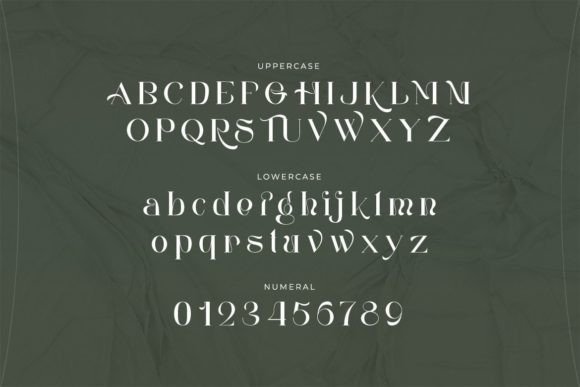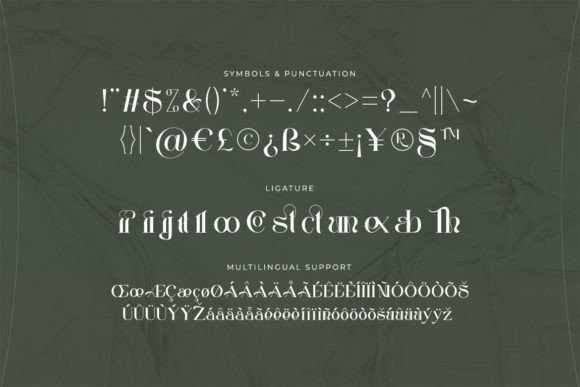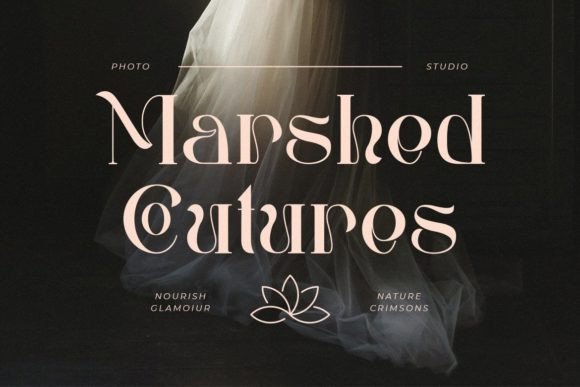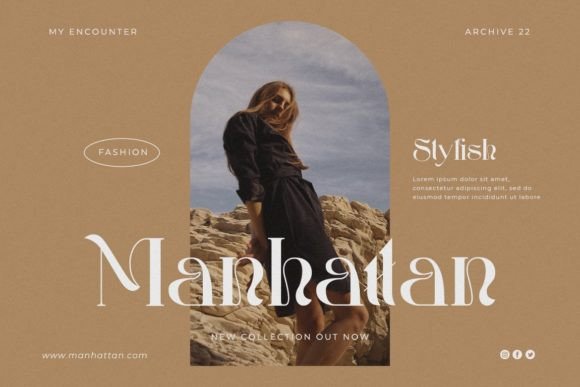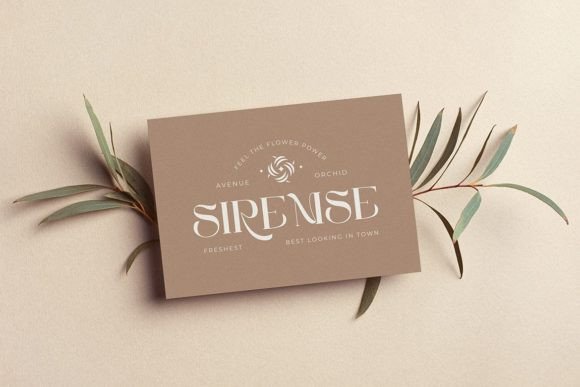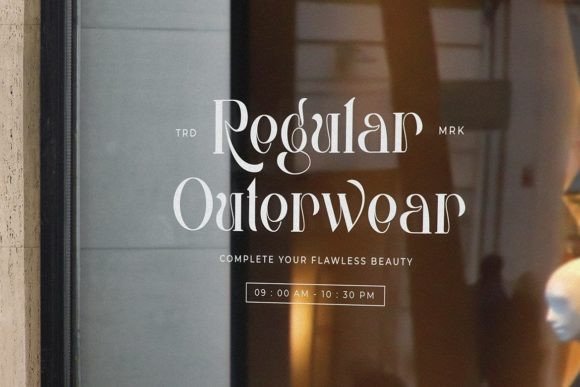
Introduction to My Encounter Font
Have you ever been working on a creative project, pouring your heart and soul into it, and then suddenly, the perfect font comes along and elevates your design to the next level? That’s exactly what happened to me when I stumbled upon the My Encounter Font. Its unique blend of elegance and sophistication instantly caught my eye, and I knew I had to learn more about this incredible design resource.
As a designer, I know how crucial it is to have access to high-quality fonts that can help bring our vision to life. The My Encounter Font, with its PUA encoding, offers a level of flexibility and creativity that’s hard to find in other fonts. With its wide range of glyphs and ligatures, I can confidently say that this font is a game-changer for any design project, whether it’s a logo, a brochure, or even a presentation with a transparent background.
Key Features of My Encounter Font
- High-quality, professional design perfect for creative projects and presentations.
- Includes a range of styles and weights, allowing for maximum flexibility in your design.
- Perfect design resource for graphic designers, artists, and anyone looking for a unique font for their creative project.
Honest Review: My Encounter Font
As a designer, I’m always on the lookout for unique and high-quality design resources to enhance my creative projects. Recently, I stumbled upon the My Encounter Font, and I’m excited to share my honest review with you.
What works well about this font is its versatility and readability. ✨ The font comes in a variety of weights and styles, making it perfect for a range of design applications, from logos to digital products. The transparent background option also provides a clean and modern look, which is ideal for minimalist designs.
Some of the key features of the My Encounter Font include:
- High-quality design with a unique aesthetic
- Transparent background option for modern designs
- Available in various weights and styles
Overall, I’m impressed with the My Encounter Font, and I would recommend it to designers looking for a high-quality, unique font for their creative projects. However, be aware of the limitations mentioned above and ensure that the font meets your specific design needs.
Getting the Most Out of My Encounter Font
- Combine it with other design elements to create a unique and eye-catching visual identity.
- Experiment with different font sizes and styles to add emphasis and hierarchy to your design.
My Encounter Font is a popular design resource that can be used in a variety of creative projects, including:
- Brand identity